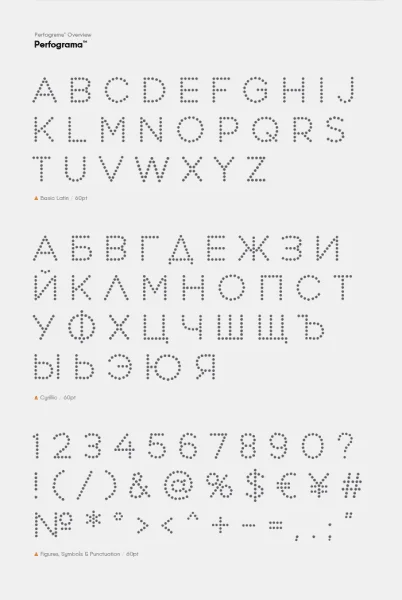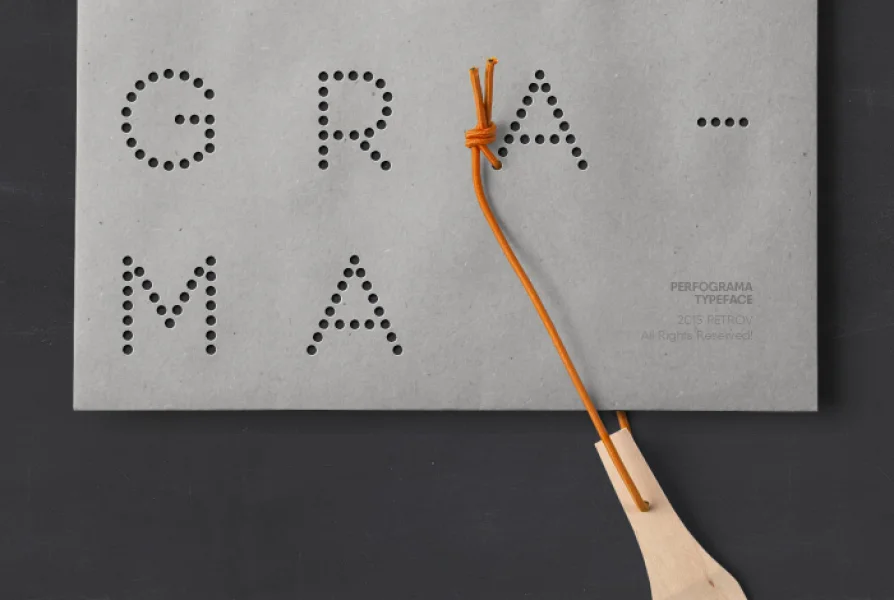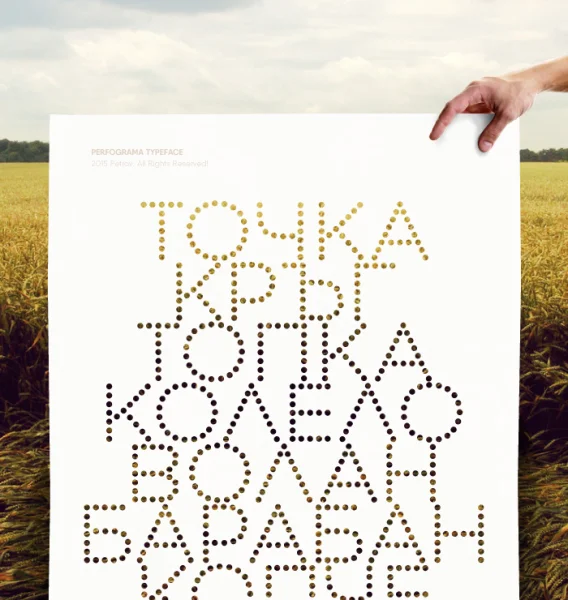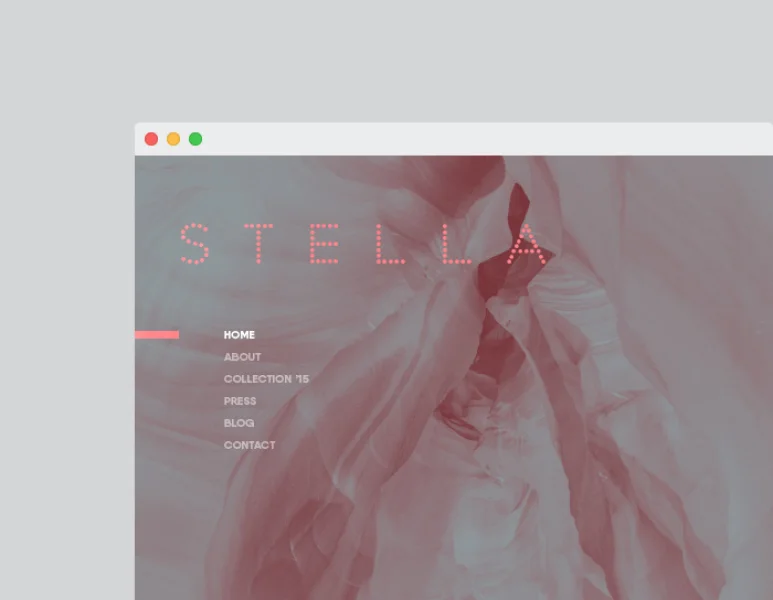
The font is inspired by computing machines IBM Harvard – Mark 1, an electro mechanical computer read its instructions from a 24-channel punched paper tape and executed the current instruction and then read in the next one. It had no conditional branch instruction. The original concept was presented to IBM by Howard Aiken in November 1937.